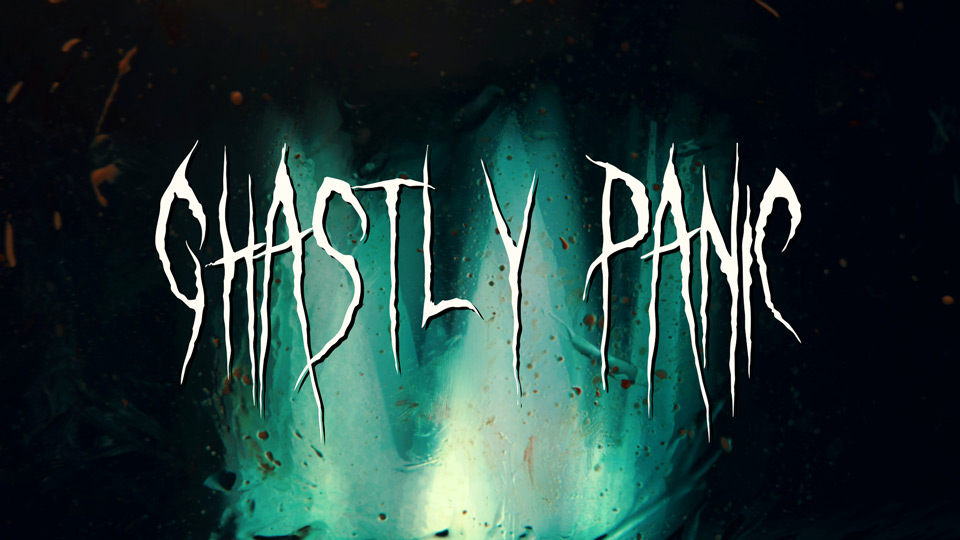
Download Ghastly Panic font, a horror hand lettered font crafted with elongated strokes, and unsettling irregularities that create an unsettling and eerie appearance. Ghastly Panic font is ideal for designs that require a touch of gothic horror and macabre aesthetics.